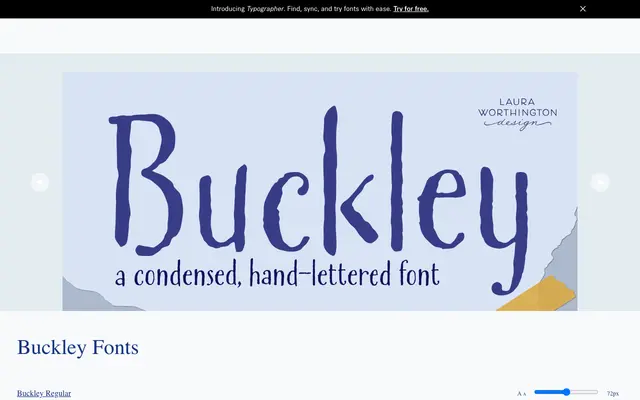
Buckley
A condensed, fountain-pen-derived script with ink-on-paper texture and randomised alternates to simulate natural handwriting.
Drawn from characters written with a Waterman Ideal #2 fountain pen, Buckley carries visible ink texture and a condensed stance that gives it warmth without formality. Randomised contextual alternates cycle through multiple letterforms as you type, reducing the repetition that makes hand-lettered fonts read as mechanical. It suits packaging, greeting cards and children's publishing where an approachable, informal tone is needed.
A condensed, ink-textured hand-lettered script based on fountain pen strokes, with randomised contextual alternates to simulate natural handwriting variation.